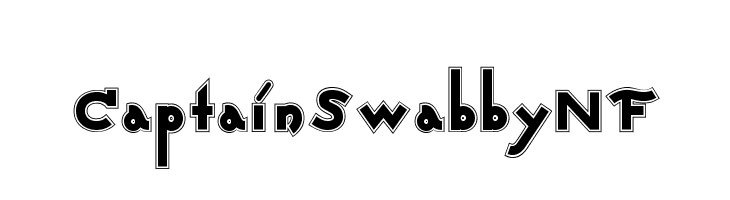
( Fabio Servolo )
A bold, condensed font with a modern and strong aesthetic.
A bold, medieval-inspired serif font with sharp, angular features.
A bold, shadowed font with angular edges and a three-dimensional look.
( Creatype Studio - Rian Rahardi - creativemarket.com/creatype )
A dynamic, brush-stroke font with an energetic and expressive style.
( Fonts by Letterative Studio - Personal-use only. For commercial use please contact owner. )
A lively, flowing script font with a natural handwritten style.
( Harried Type - harriedtype.com )
A modern, geometric font with thin lines and a minimalist design.
( Harried Type - H.G. Blakeman - harriedtype.com )
A playful, handwritten font with a casual and whimsical style.
( Fonts by Halymunt Studio - Personal-use only. For commercial use please contact owner. )
A delicate and elegant script font with flowing, cursive letterforms.
( Roland Huse Design - www.rolandhuse.com )
A bold 3D script font with elegant, flowing letterforms and a shadow effect.
( gameboth studio - Bhahtiar Nugroho Adiputro )
A lively and elegant script font with smooth, flowing curves.
( Graptail Type Studio - creativemarket.com/graptail )
A bold, high-contrast serif font with a vintage flair.